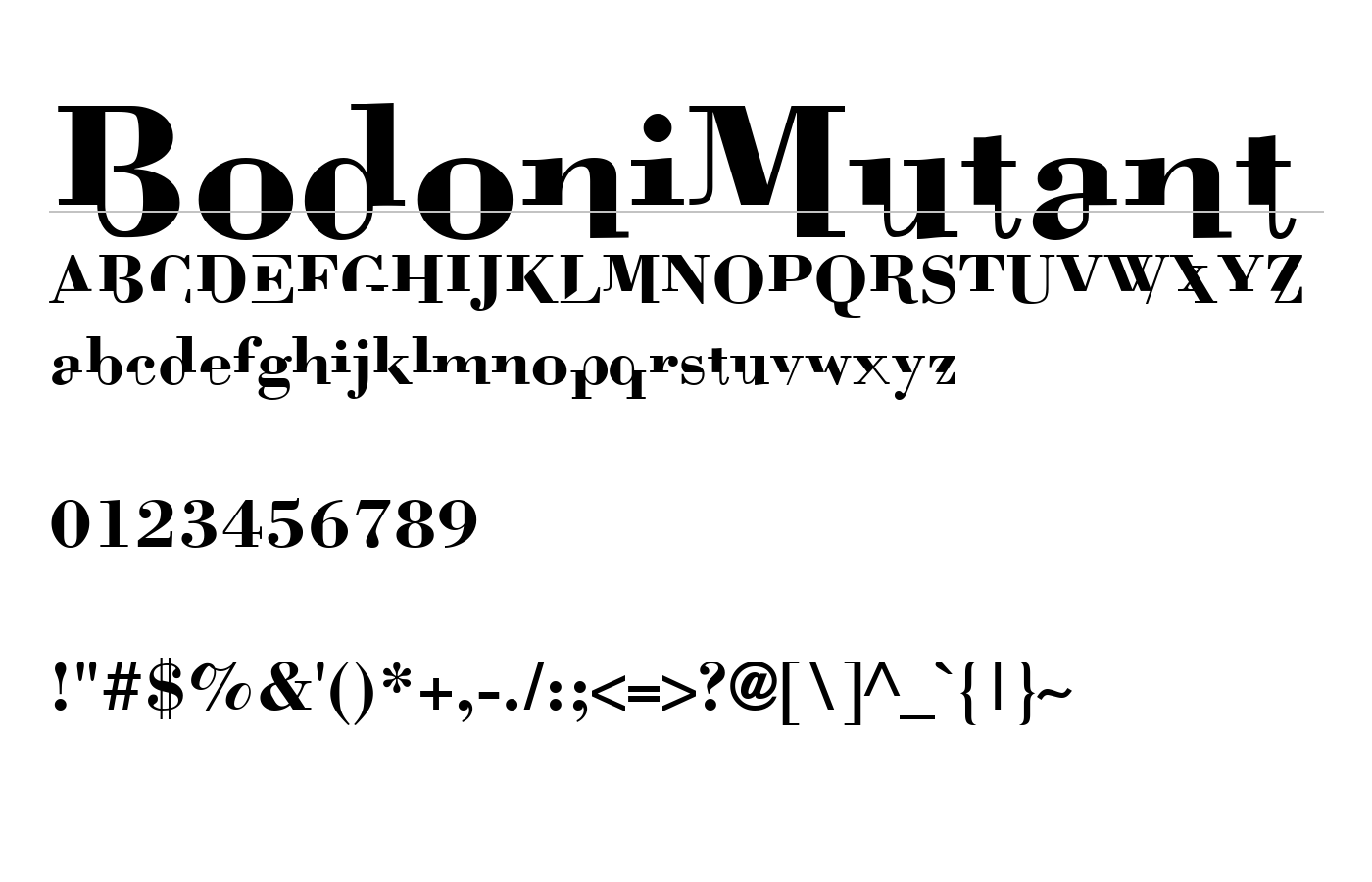
BodoniMutant is a modern serif font inspired by classic Didone styles but with a bold, experimental twist that blends thick and thin strokes unevenly for a striking visual impact. Its high contrast, condensed letterforms, and unique character shapes give it a dramatic and artistic personality, making it ideal for eye-catching headlines, fashion branding, and editorial design where a mix of elegance and unconventional flair is desired. This font works well in contexts that seek to combine tradition with a fresh, avant-garde edge.
BodoniMutant Font